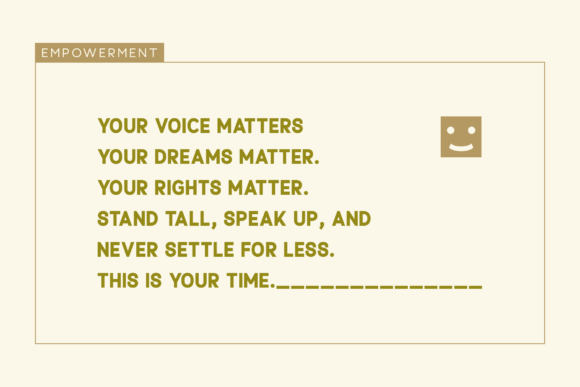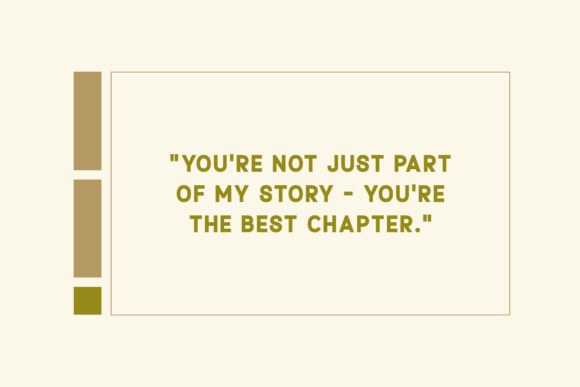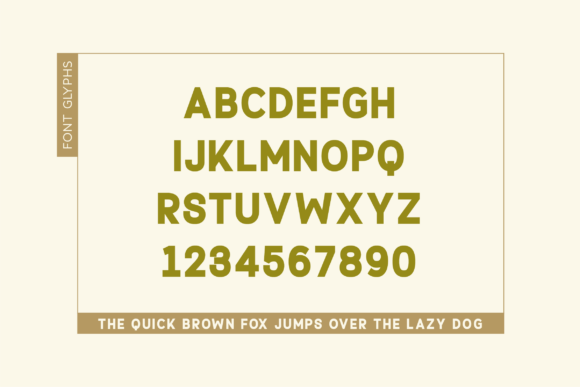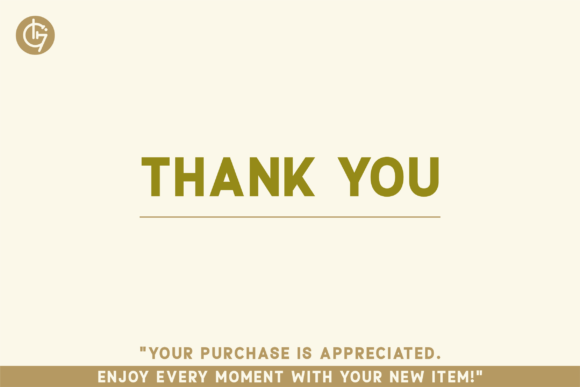
Introducing Everlasting – A Modern Sans Serif Typeface
In the world of design, typography plays a crucial role in conveying messages, expressing creativity, and building brand identities. For designers and crafters looking for a font that embodies strength, authority, and professionalism, Everlasting is an exceptional choice. This bold, all-caps sans serif typeface is meticulously designed to make a statement, perfect for projects that demand a modern, clean, and impactful look.
Design Characteristics of Everlasting
Everlasting boasts a modern, minimalist style that is both visually appealing and highly legible. Its clean lines and sharp, crisp edges give it a confident and professional appearance, making it an ideal choice for a wide range of design projects. The font’s strong, geometric structure ensures versatility, allowing it to be used seamlessly across various mediums, from digital interfaces to high-end branding materials.
Key Features of Everlasting
- All-caps design: Everlasting’s all-caps design ensures maximum impact and clarity, making it perfect for headlines, posters, and any design element where you want your message to stand out.
- Modern and minimalist: The font’s modern, minimalist style focuses on readability, ensuring that your message is conveyed clearly and effectively.
- Bold and clean lines: The bold, clean lines of Everlasting give it a confident and professional look, suitable for branding, logos, packaging, and digital design.
- Versatility: Everlasting is perfect for both large-scale headlines and smaller text blocks, offering flexibility for various design needs.
Use Cases for Everlasting
Everlasting’s versatility and impactful design make it suitable for a variety of projects, including:
- Branding and logos: Create a strong and memorable brand identity with Everlasting’s bold and authoritative look.
- Websites and digital interfaces: Enhance your digital presence with a font that is clean, modern, and highly readable on various devices.
- Print materials: From posters and flyers to brochures and business cards, Everlasting adds a touch of professionalism and impact to your print designs.
- Packaging design: Stand out on store shelves with packaging that features a bold, confident, and modern typeface.
Why Choose Everlasting?
In a sea of typefaces, Everlasting stands out for its unique blend of modernity, readability, and impact. Here are a few reasons why designers and crafters are choosing Everlasting:
- Professionalism: The font’s clean and bold design exudes professionalism, making it perfect for projects where you want to make a serious impact.
- Readability: Despite its bold nature, Everlasting maintains high readability, ensuring your message is conveyed clearly.
- Versatility: Its geometric structure and clean lines make it adaptable to various design contexts and mediums.
Everlasting is more than just a typeface; it’s a design statement. Its modern sans serif look, combined with its bold and clean lines, makes it an invaluable asset for designers looking to create impactful and professional designs. Whether you’re working on branding, digital design, or print materials, Everlasting offers the versatility and authority you need to make your project stand out. Explore the possibilities of Everlasting and elevate your designs with a typeface that is truly everlasting.